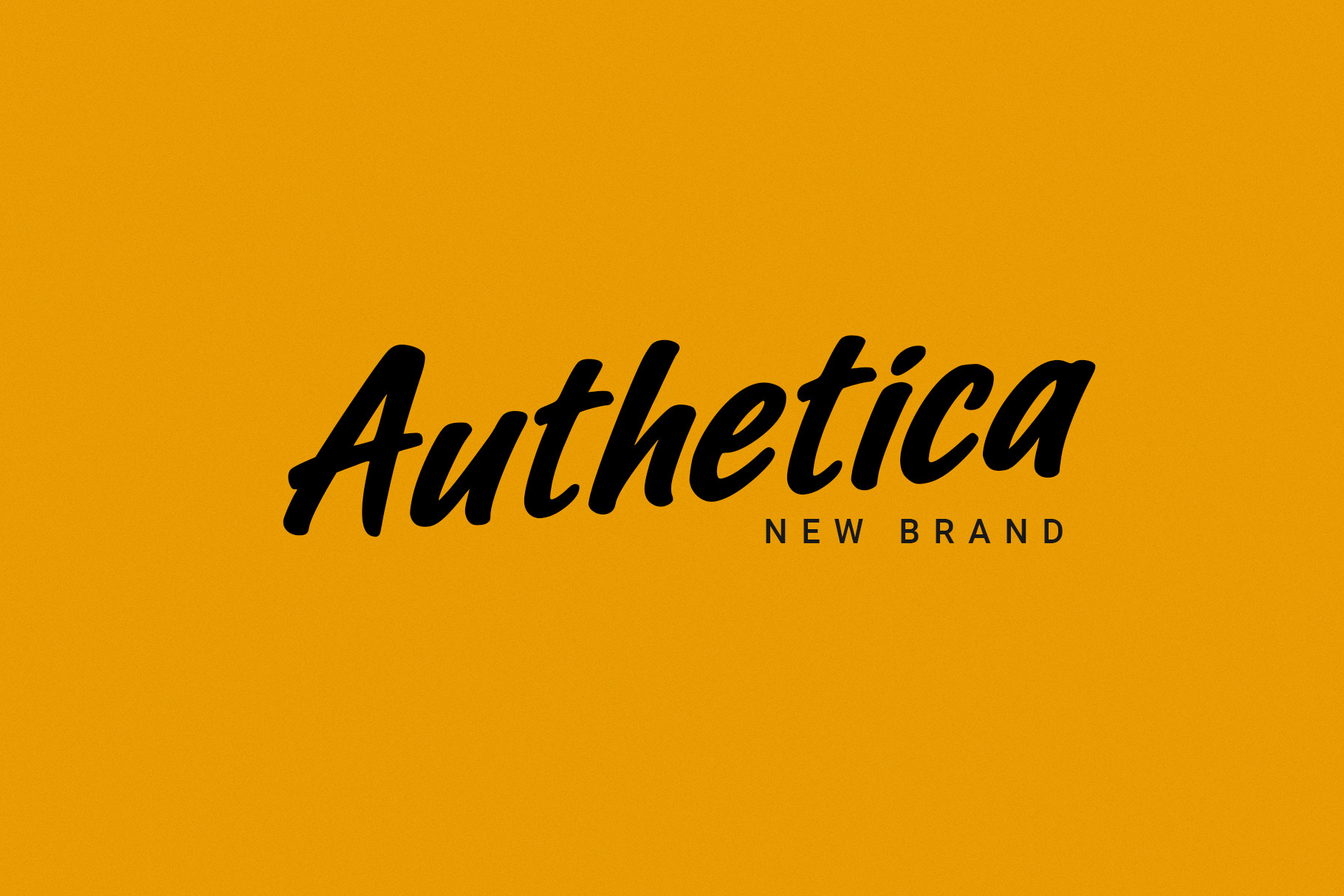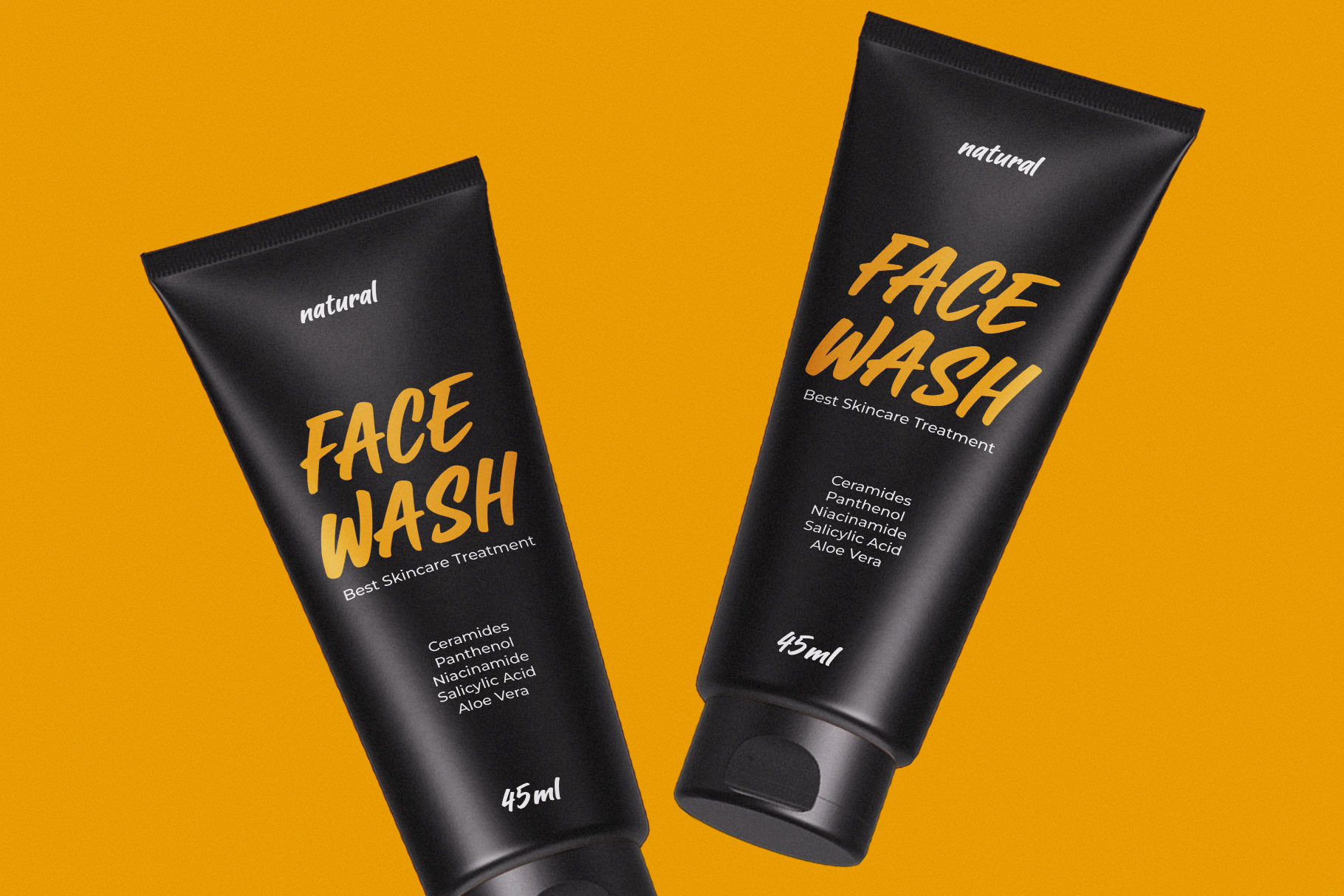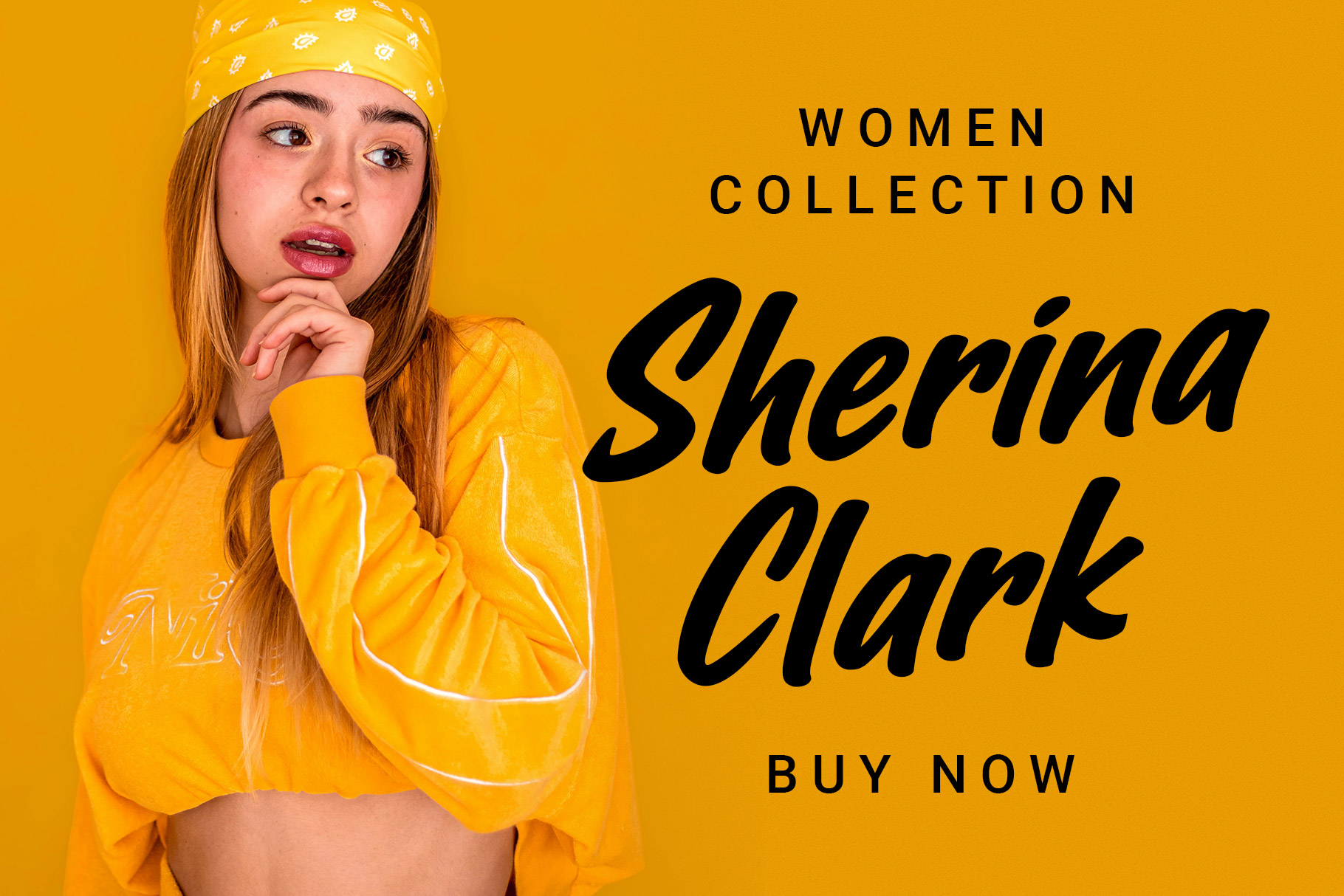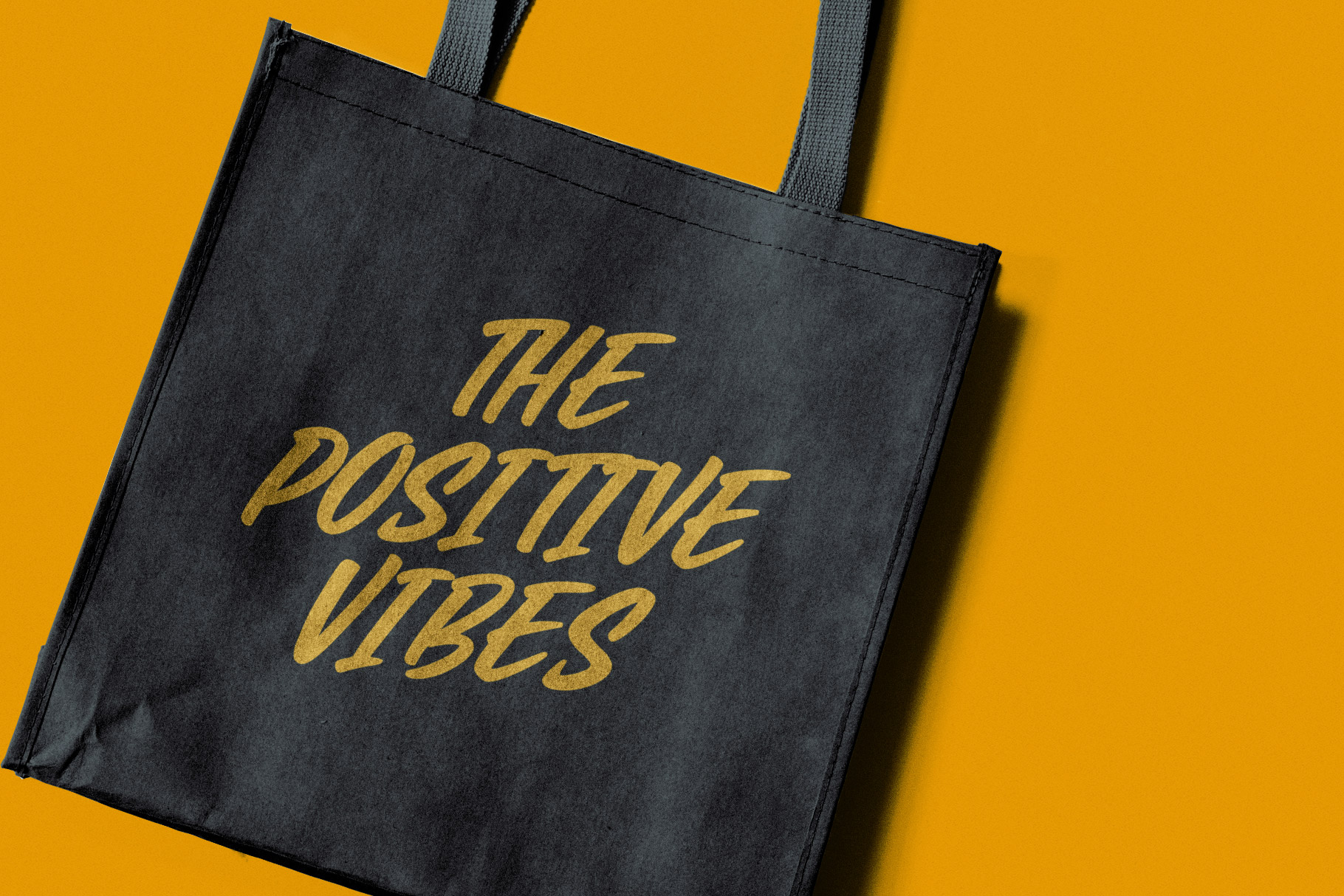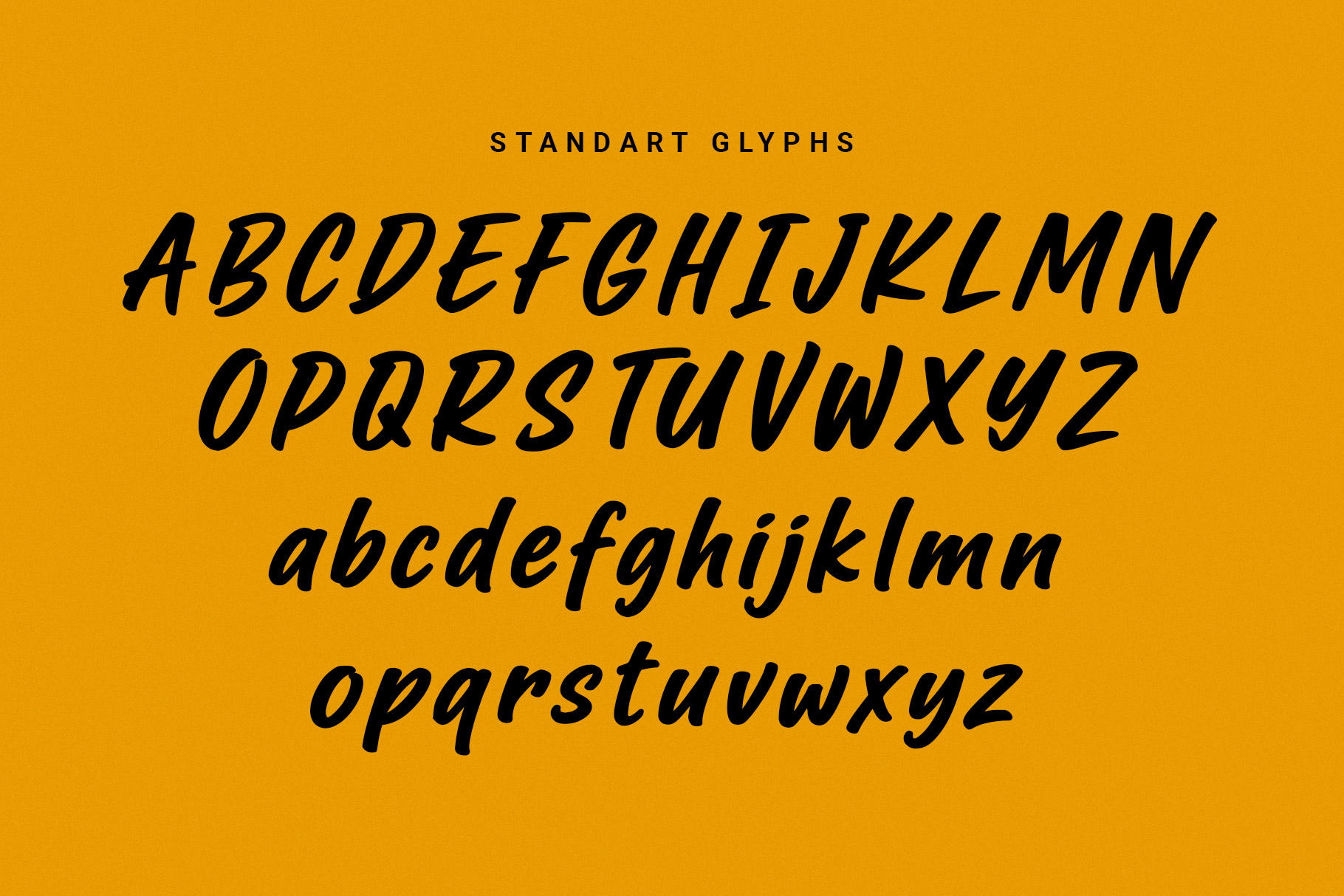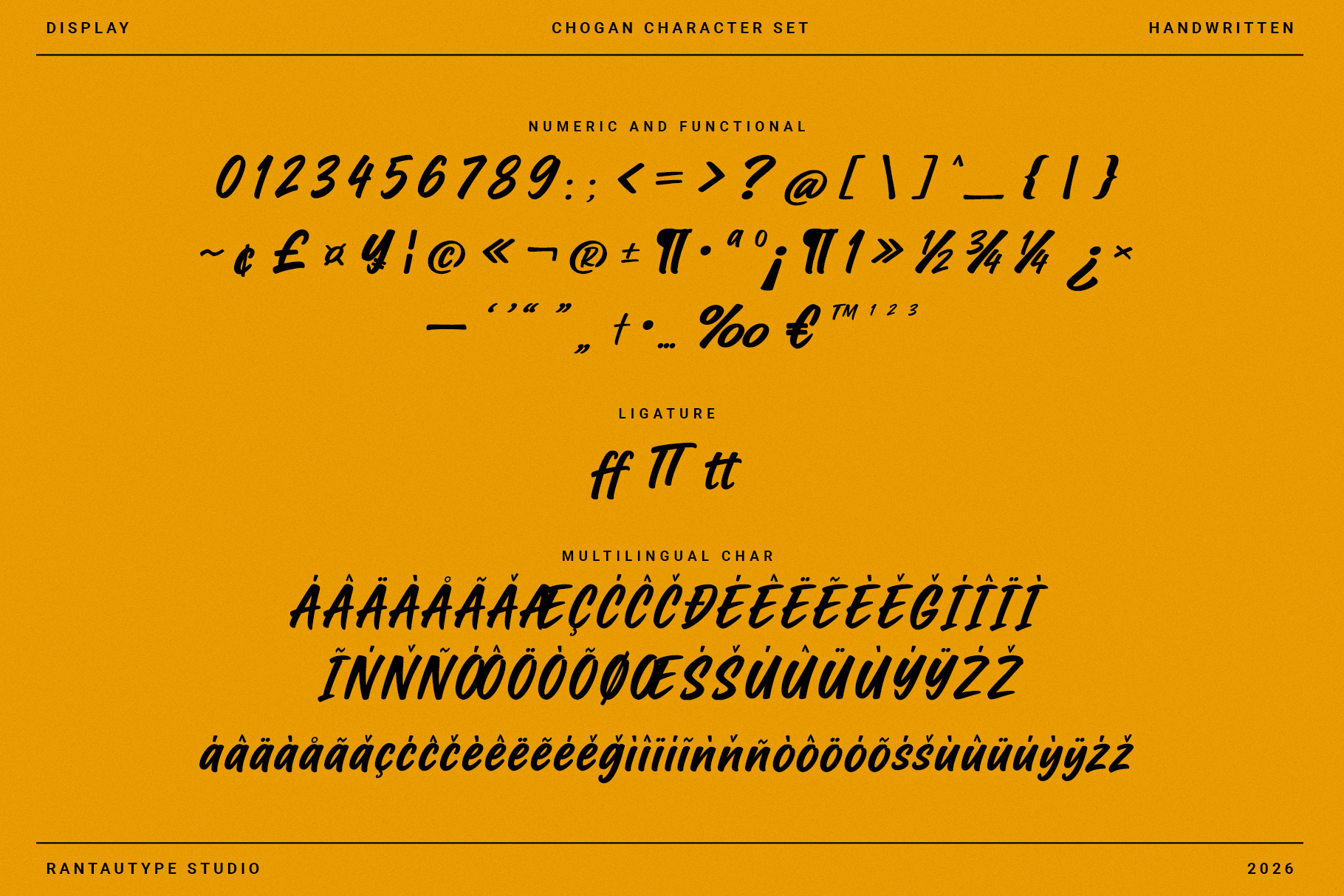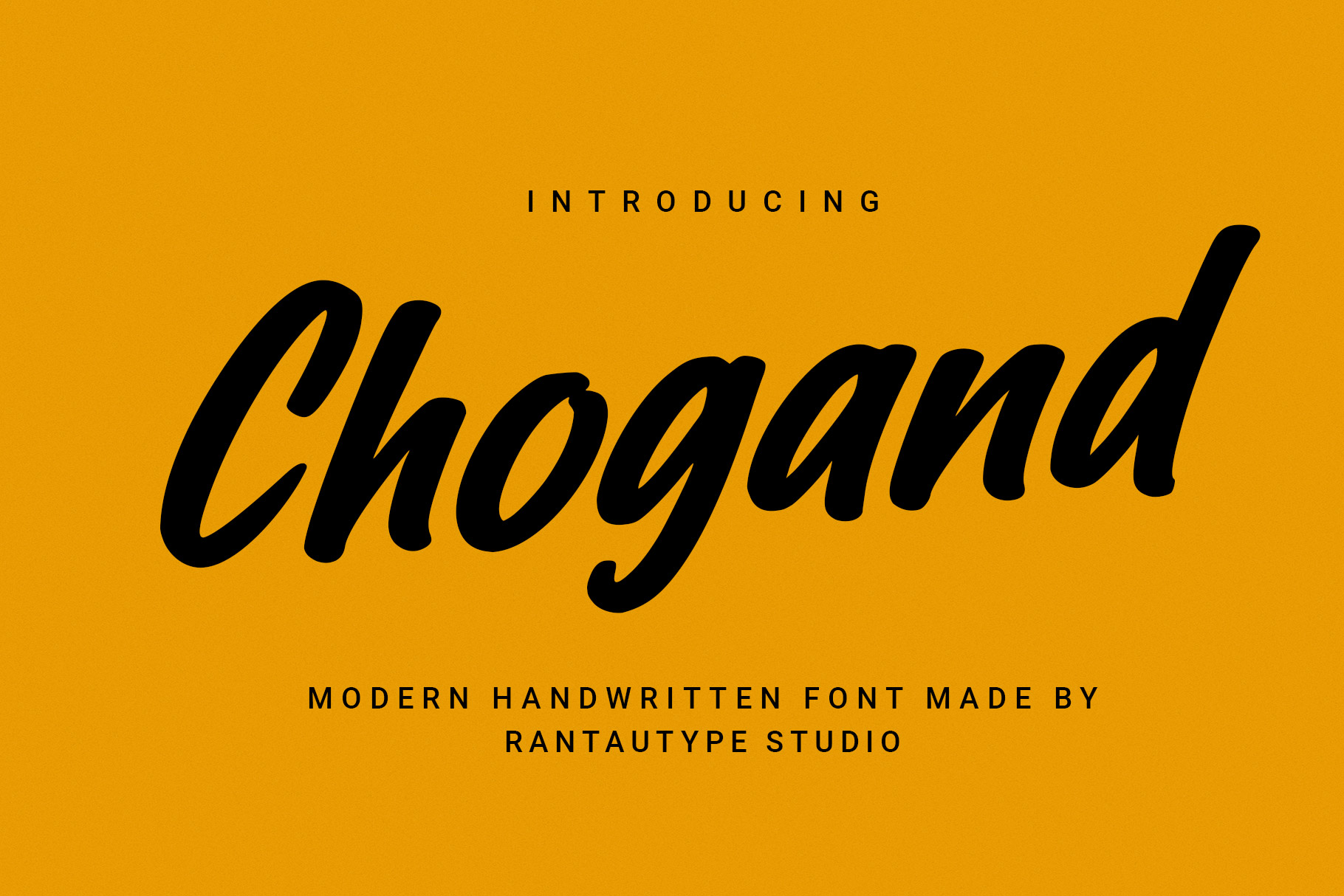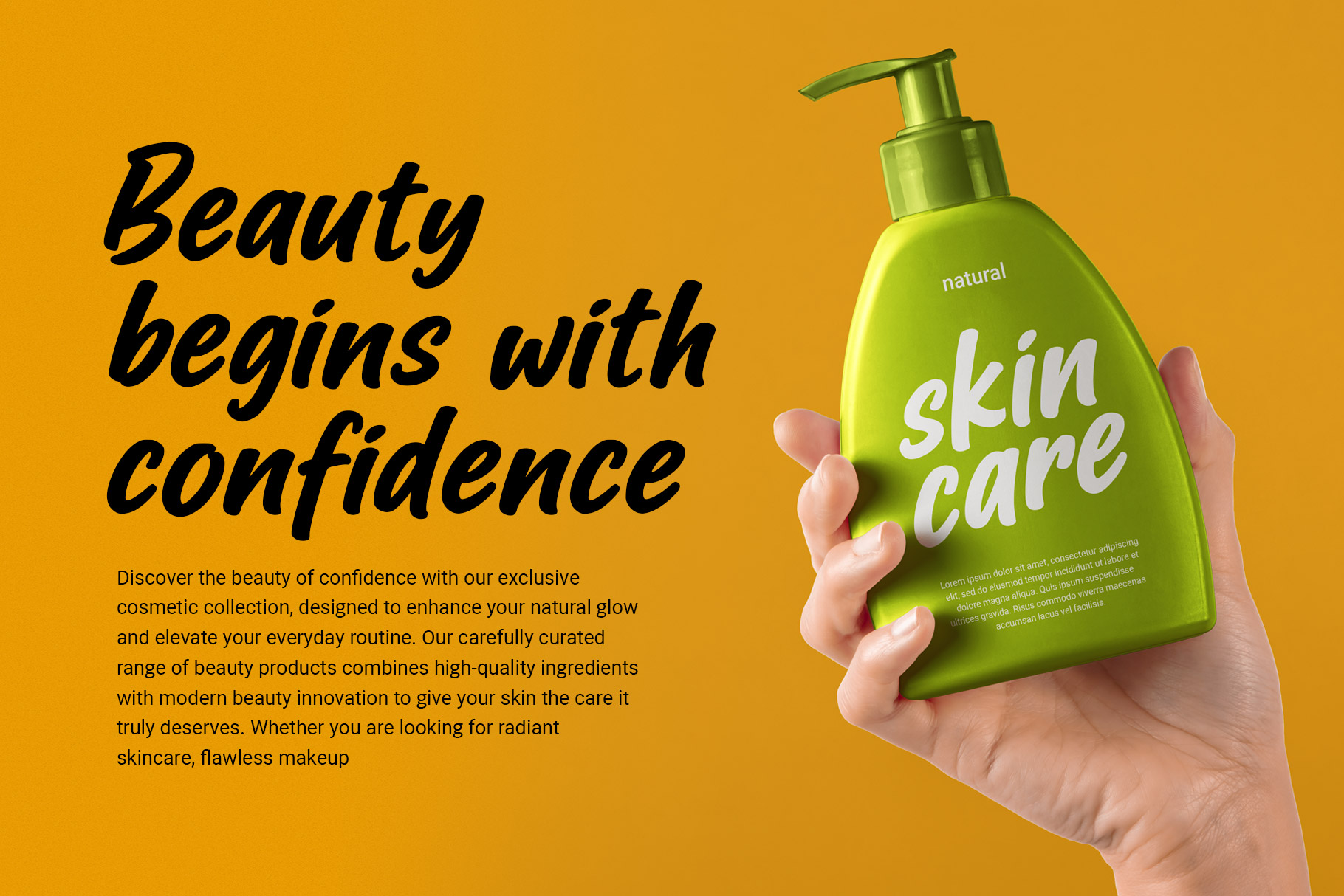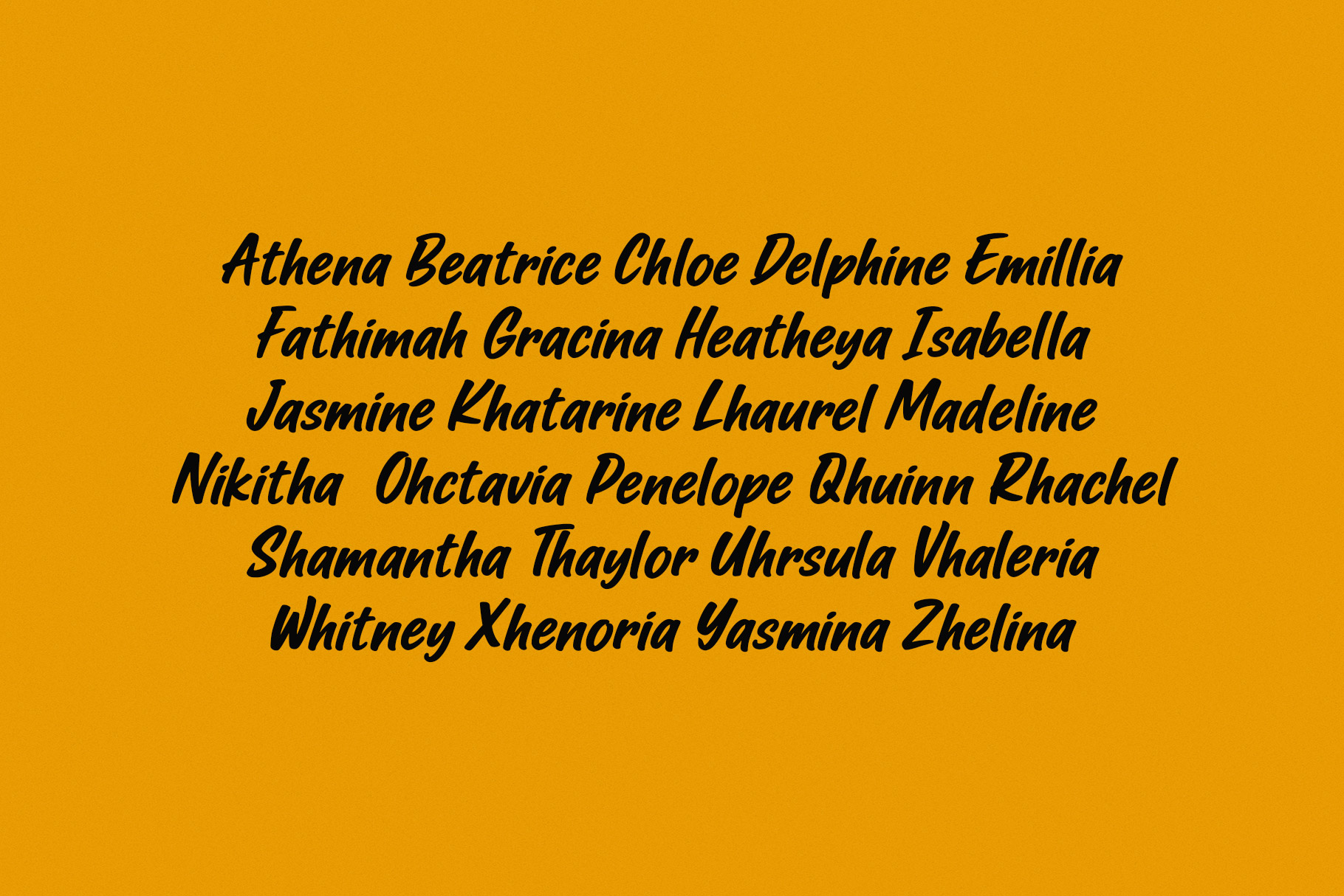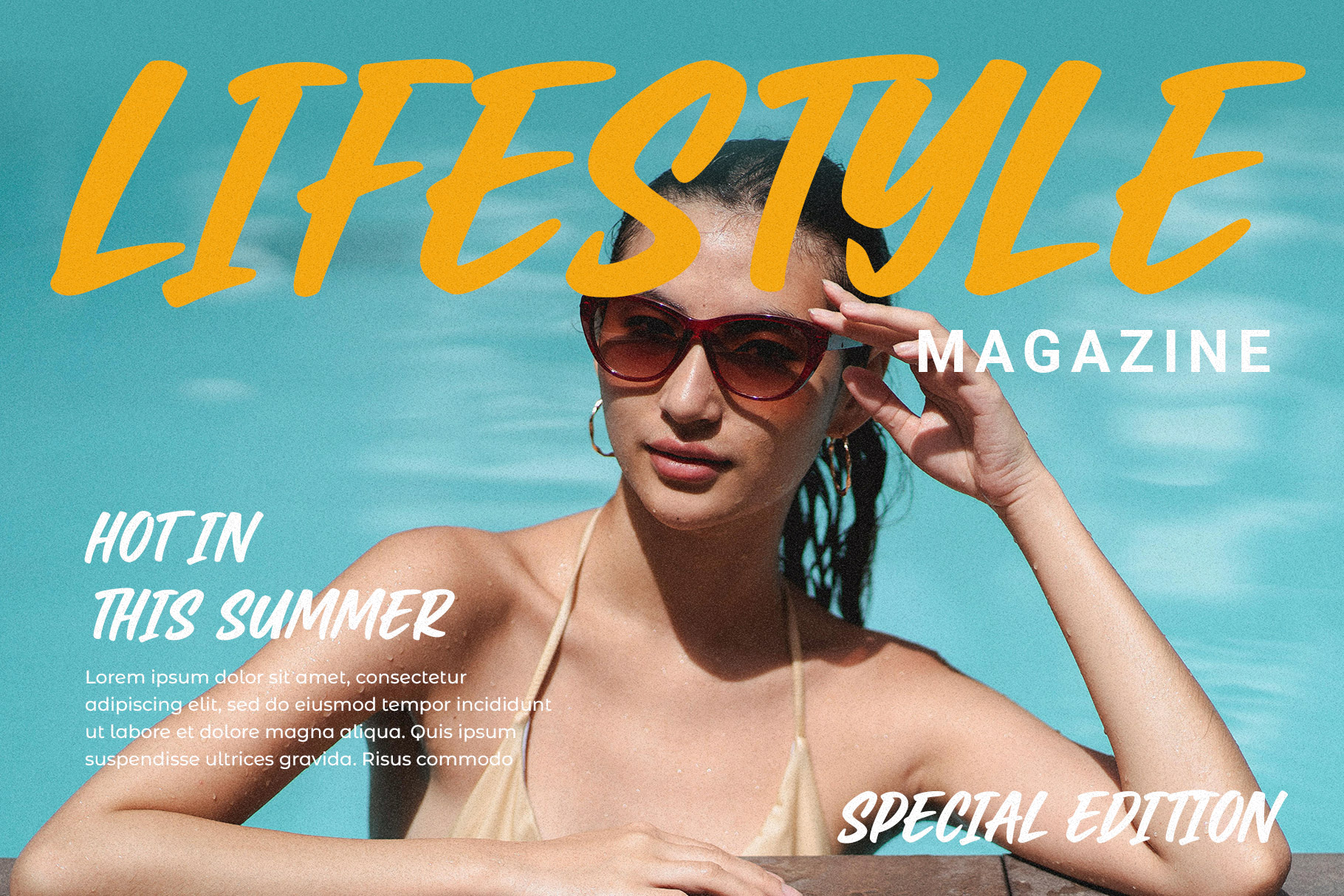
Chogand Branding Handwritten Font
Chogand is modern handwritten font specialist in branding. Chogand come with stylish curves to create more value in your brand. Chogand is a perfectly choice for any creative endeavor, creating, modern, lifestyle design such as logotype, title, cover, branding, invitations, wedding designs, display and magazine, social media posts, advertisements, printed quotes, product packaging, corporate brand, product designs, labels, photography, watermarks, special events and any other project with modern touch.